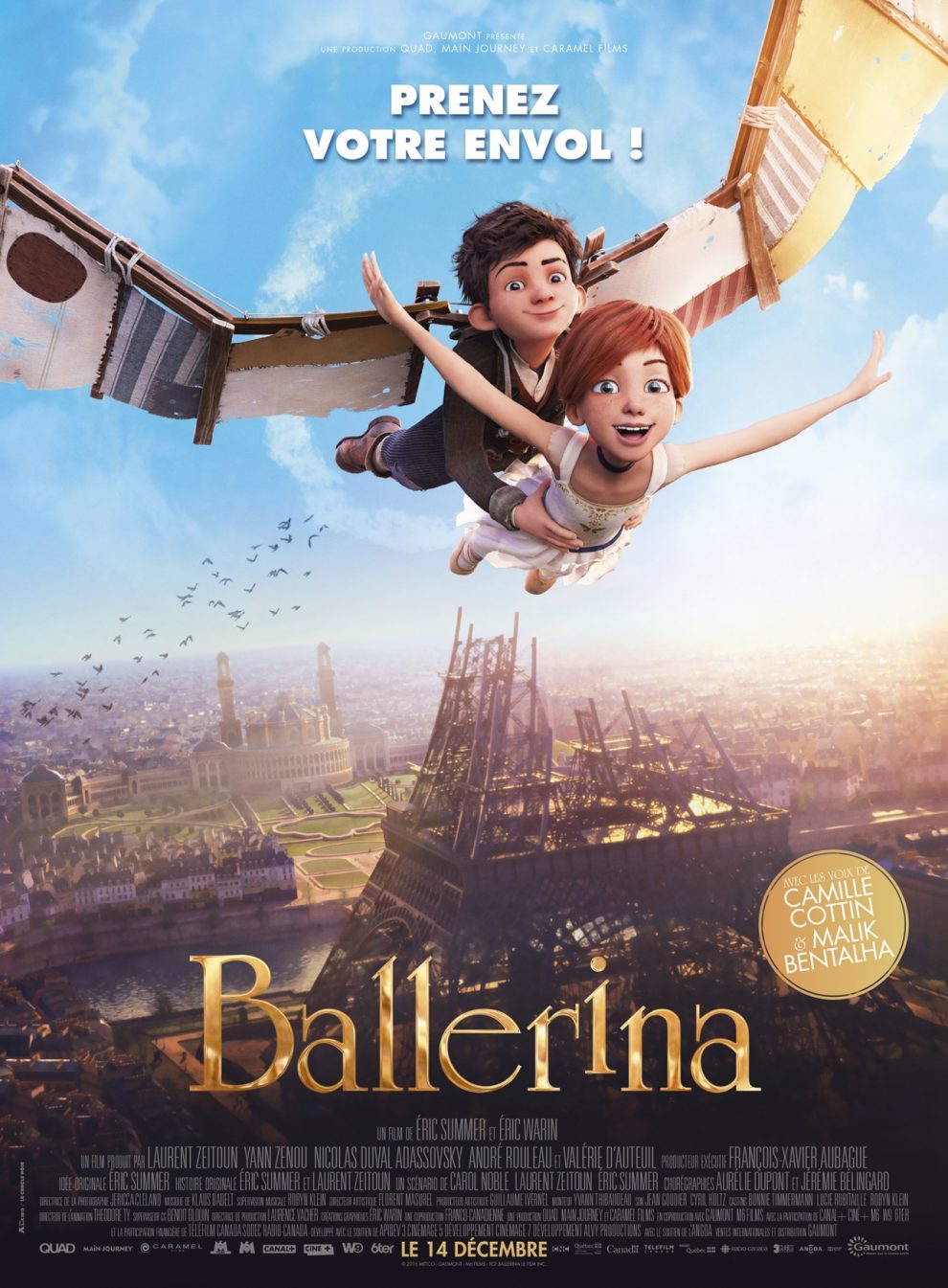
Ballerina (film) Font
AdventureBallerina (titled Leap in the United States) is a 2016 3D computer-animated musical comedy adventure film. It is about a young orphan girl named Félicie who dreams of becoming a ballerina. With the help of her friend Victor, a young inventor, Félicie escapes from the orphanage and travels to Paris to audition for the prestigious Opera Ballet School.
The Ballerina film title in the poster is similar to University Roman. Based on Speedball hand-lettering, University Roman was designed at the Letraset Type Studio in 1983. A notable feature of University Roman are its narrow capitals with crossbars that extend beyond the median line.